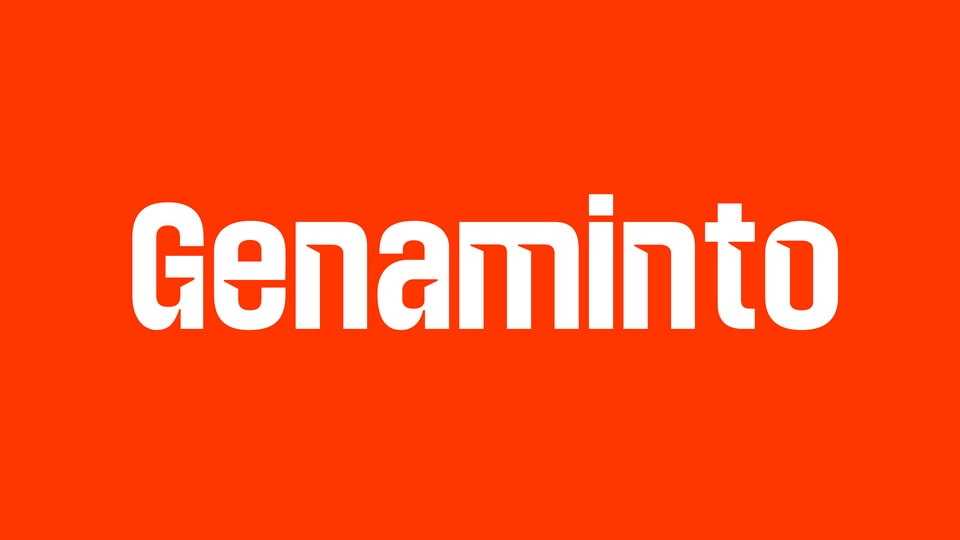
Download Genaminto font, a bold and expressive display typeface defined by its sharp ink traps and distinctive slash cuts designed to stand out.
Designer: Jetsmax Studio